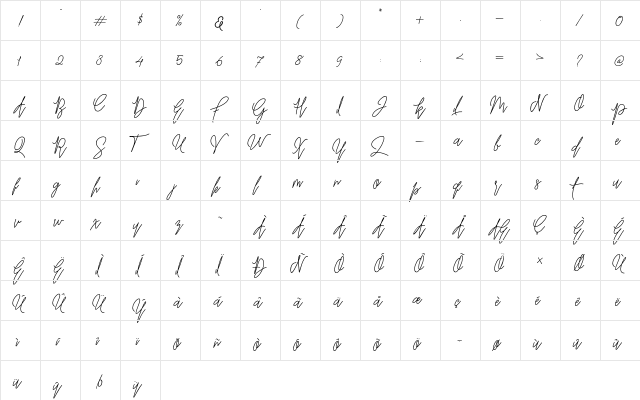
Befindisa Regular
Design Context for Befindisa Typeface
Befindisa is a composed and adaptable typeface that performs quietly and consistently across a wide range of design contexts.